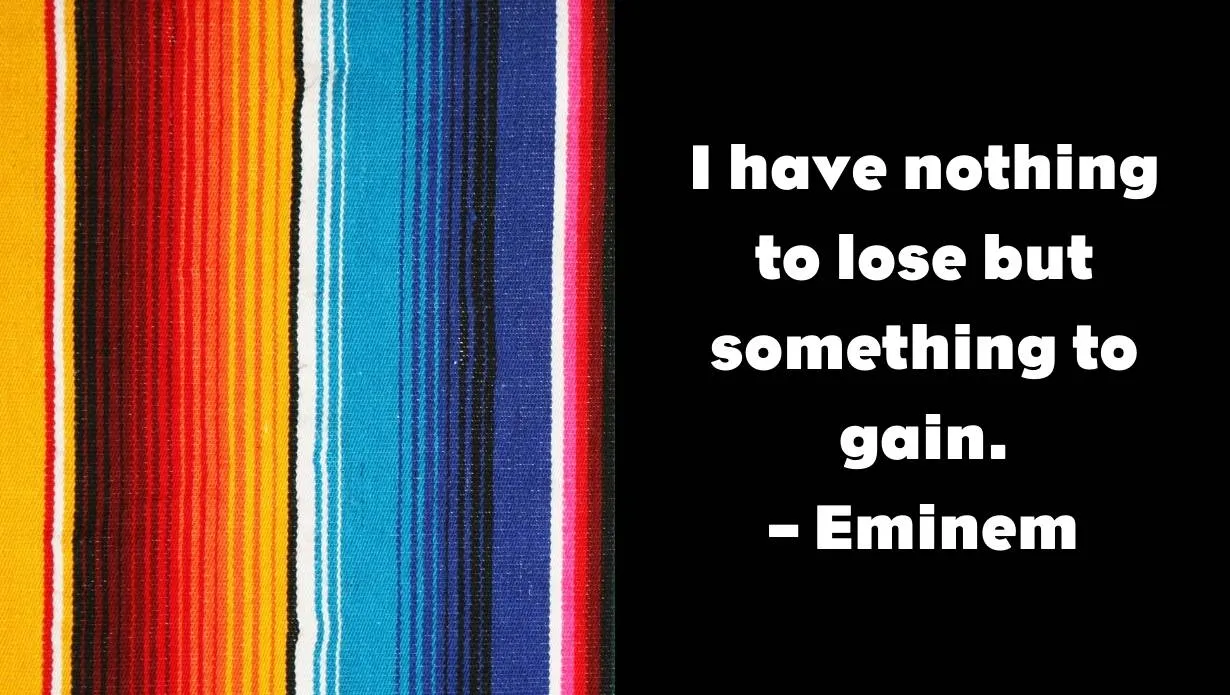
Eagle Font is a sans-serif typeface designed by German typeface designer Rudolf Koch. Eagle Font was released in 2016 by the woodcutter Manero foundry. It belongs to the Gothic typeface. It is best for use in Adobe Photoshop.
Eagle Font is characterized by its large x-height and wide proportions. The lowercase letters are wide and open, while the uppercase letters are more condensed.
Eagle Font has both a regular and a bold weight. This awesome typeface consists of more than 236 standard Characters. You can also use its alternative harley davidson font.